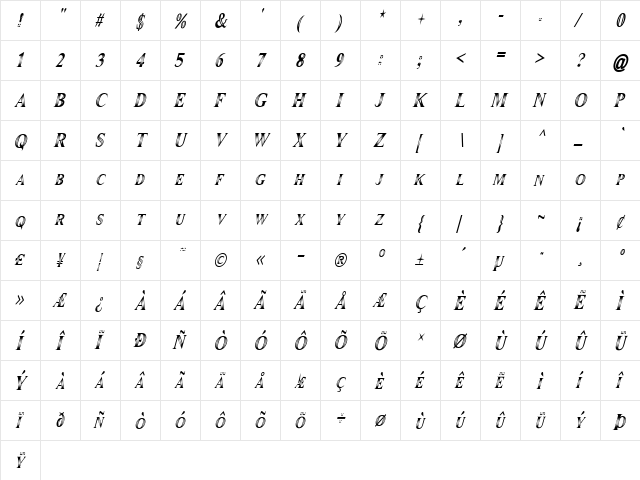
Maranallo High Italic Regular
Design Context for Maranallo High Italic Typeface
Maranallo High Italic offers clean, dependable letterforms without strong stylistic allegiance, making it a practical choice for designers who need flexibility. The slanted form adds forward momentum and visual energy.